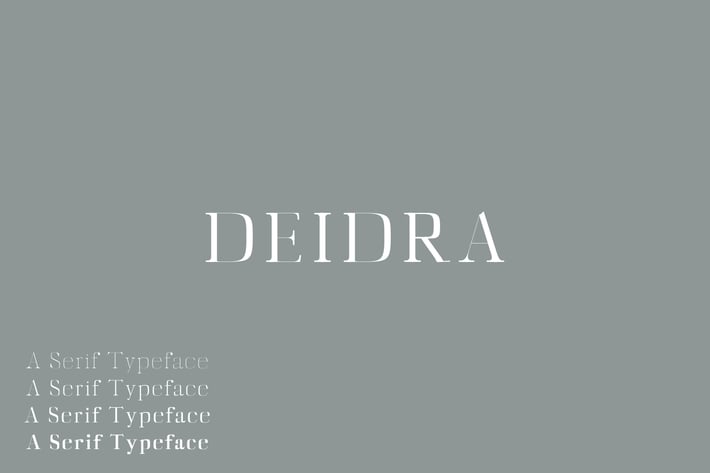
Diedra Serif Font Family Pack
Diedra is a minimal clean serif font family, which contains 4 weights and It features unique and modern serif look and feel. Perfect for gorgeous logos, titles, web layouts and branding. It looks gorgeous in all caps with a wide-set spacing if you want to try a classy look, or beautiful on its own in capital and lowercase letters for something completely timeless.
Included Features:
- Font Weight: Regular, Thin, Light and Bold
Diedra Font Features:
- Uppercase Multilingual Letters
- Lowercase Multilingual Letters
- Numbers and Punctuation
- Non English Characters ( Latin Supplement + Latin Extended A)